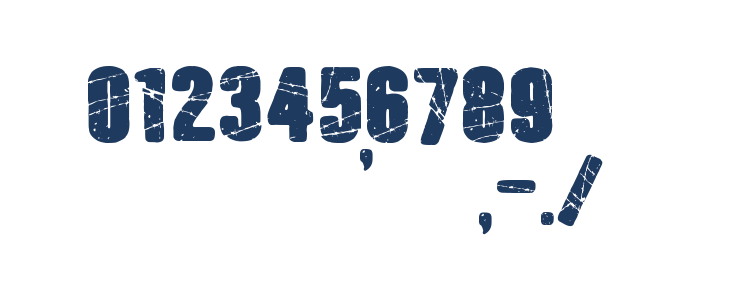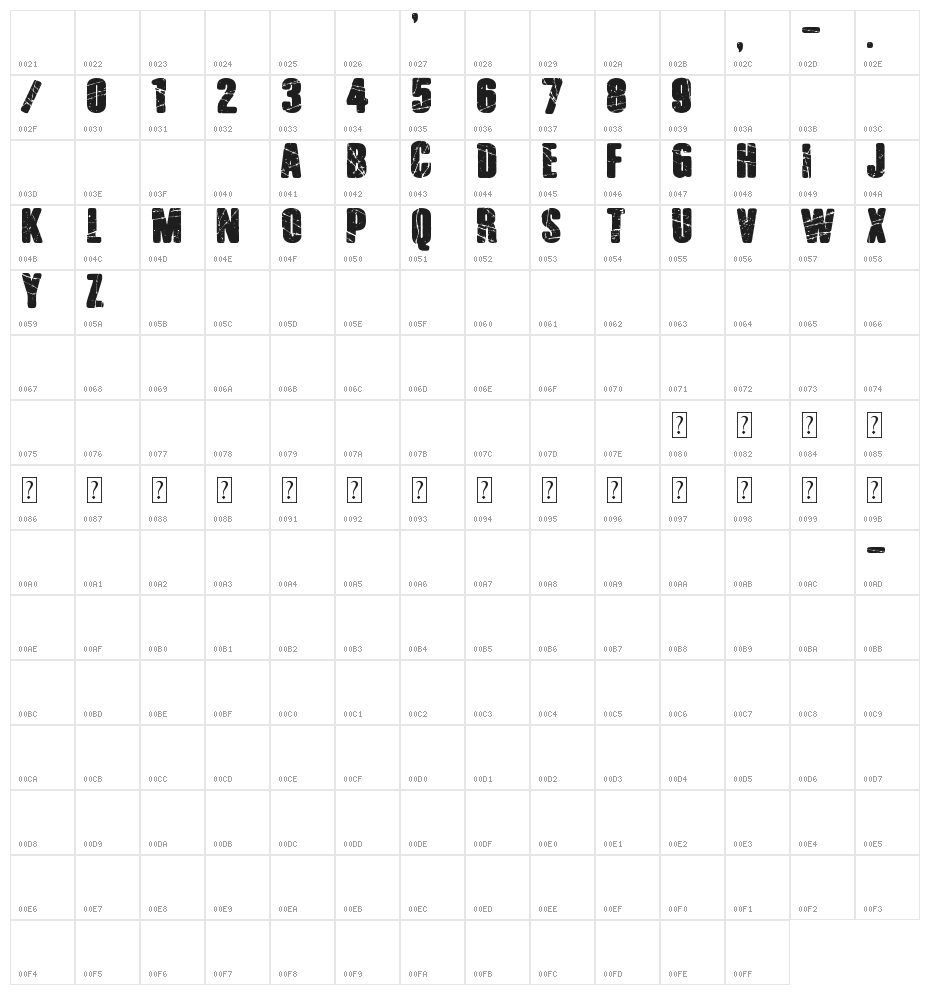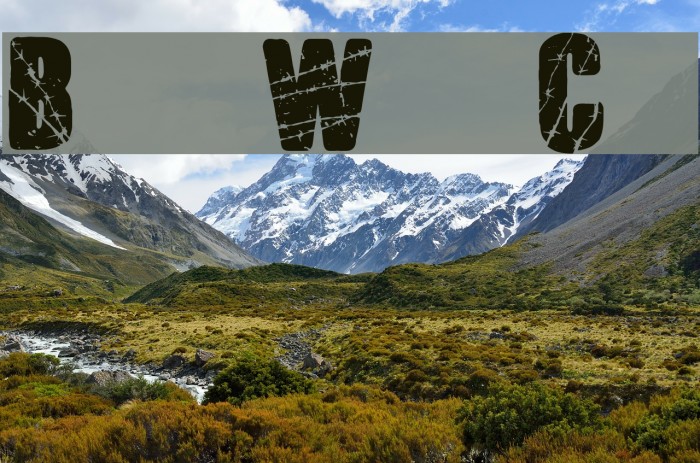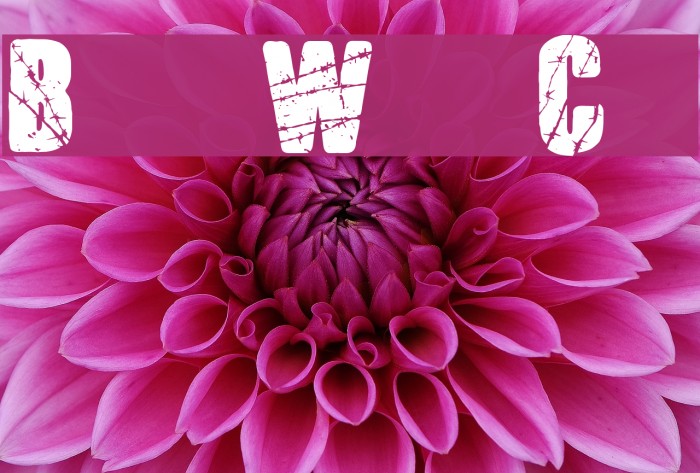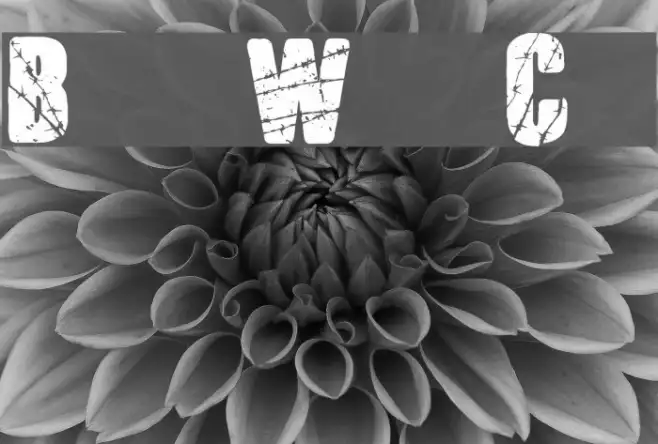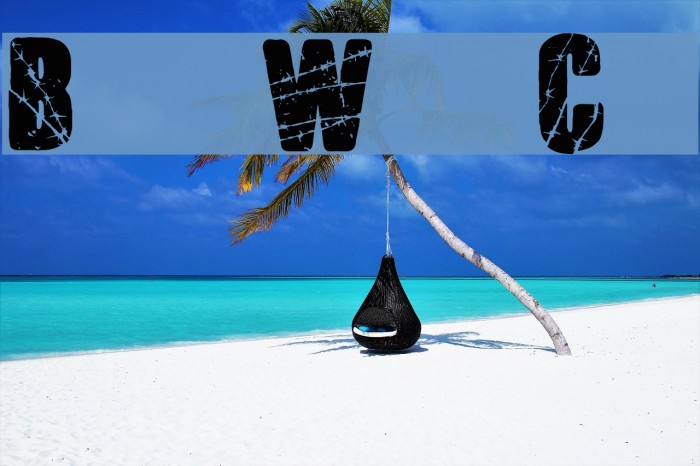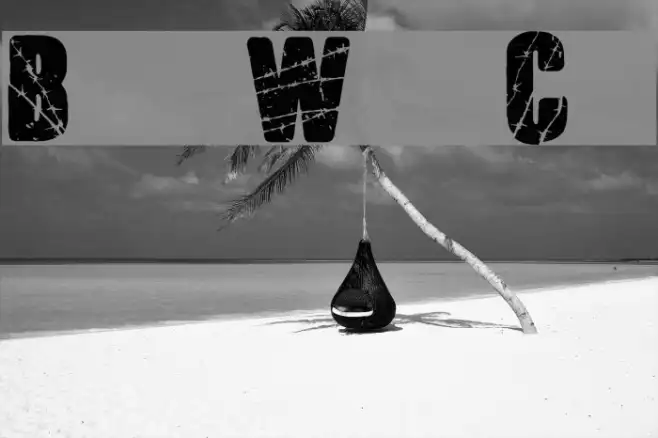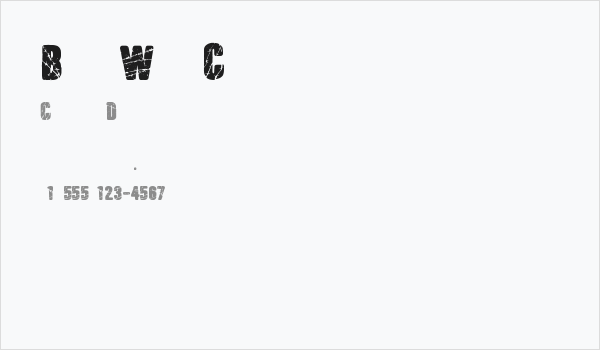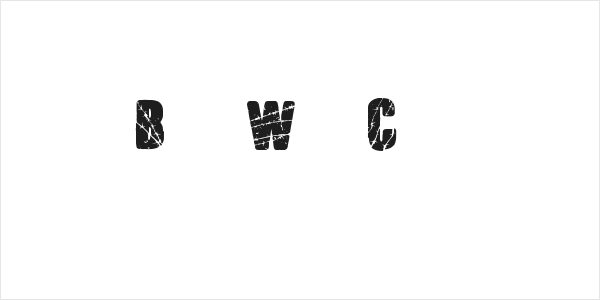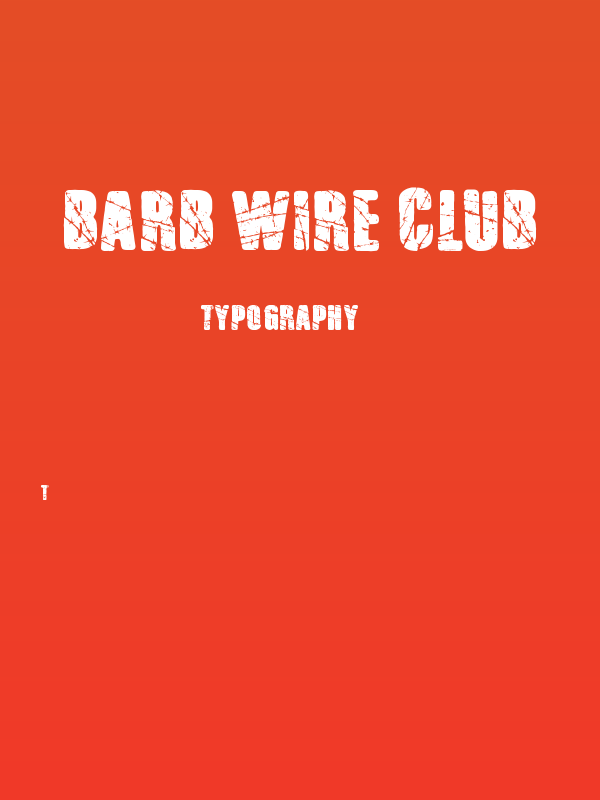
Barb Wire Club Font
Barb Wire Club Description
This font features a bold, distressed style with a rugged, textured appearance reminiscent of barbed wire. The uppercase letters are prominent and impactful, making it ideal for creating a strong visual statement. The numbers and special characters maintain the same distressed look, adding to the cohesive design. This font's unique style is perfect for projects that require a gritty, industrial feel, such as posters, album covers, or branding for edgy products.
| Proposed Projects | Ideal for posters, album covers, and edgy branding projects. |